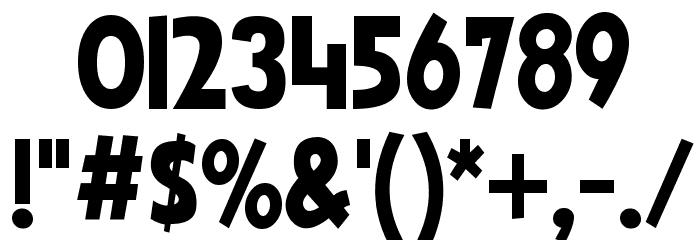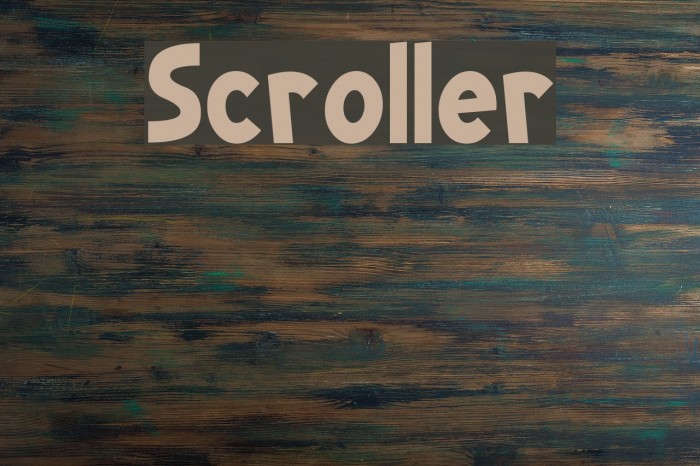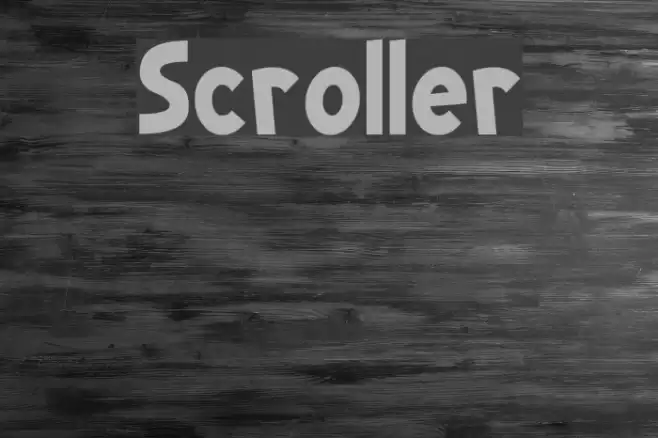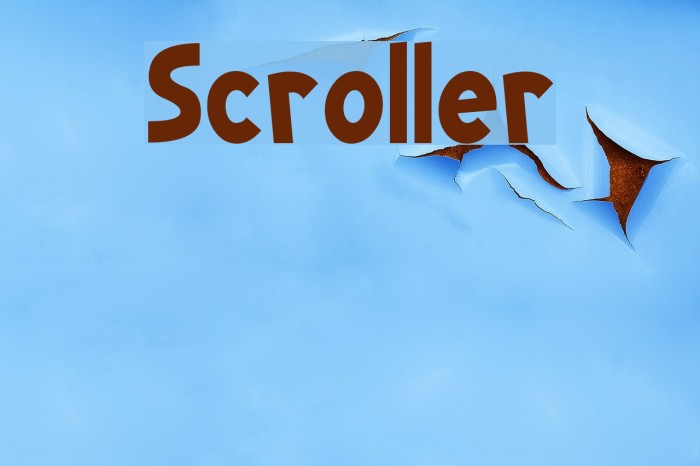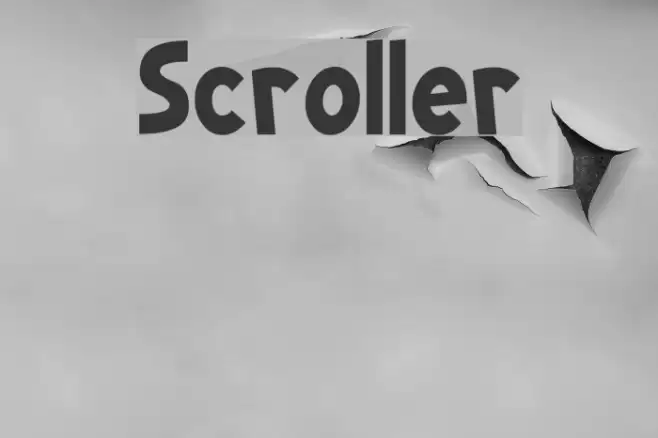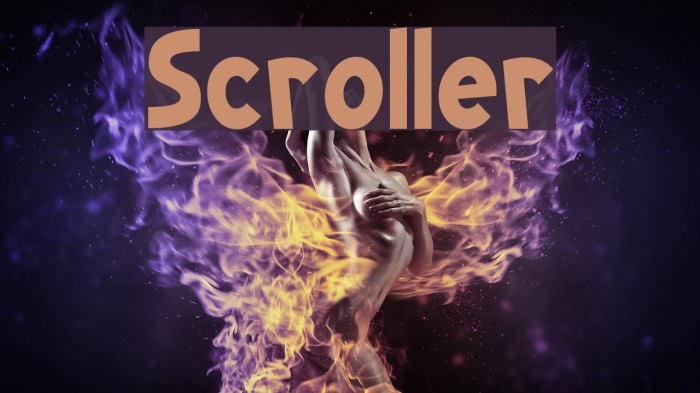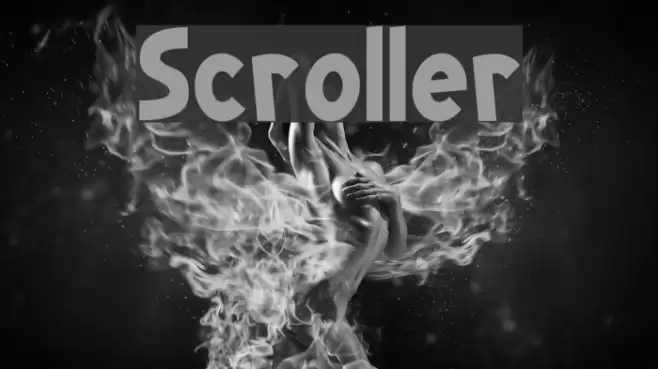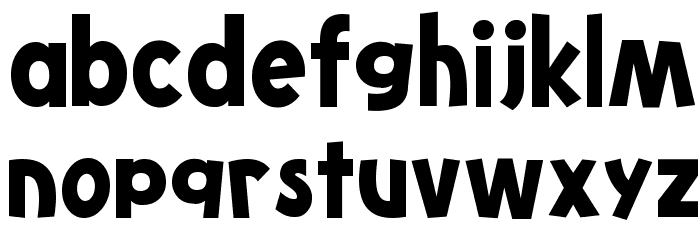
Scroller Font
Scroller Description
This font features bold, geometric letterforms with a playful and dynamic appearance. The characters are well-defined with a consistent stroke width, giving them a strong and impactful presence. The uppercase letters are particularly striking, with sharp angles and a slightly condensed form that adds to their boldness. The lowercase letters maintain the same boldness, with rounded edges that soften the overall look. The numerals are clear and easy to read, matching the style of the alphabet. Special characters are included, maintaining the same bold and playful aesthetic. This font is ideal for creating eye-catching headlines and designs that require a strong visual impact.
| Proposed Projects | Ideal for posters, branding, headlines, and any design requiring a bold statement. |